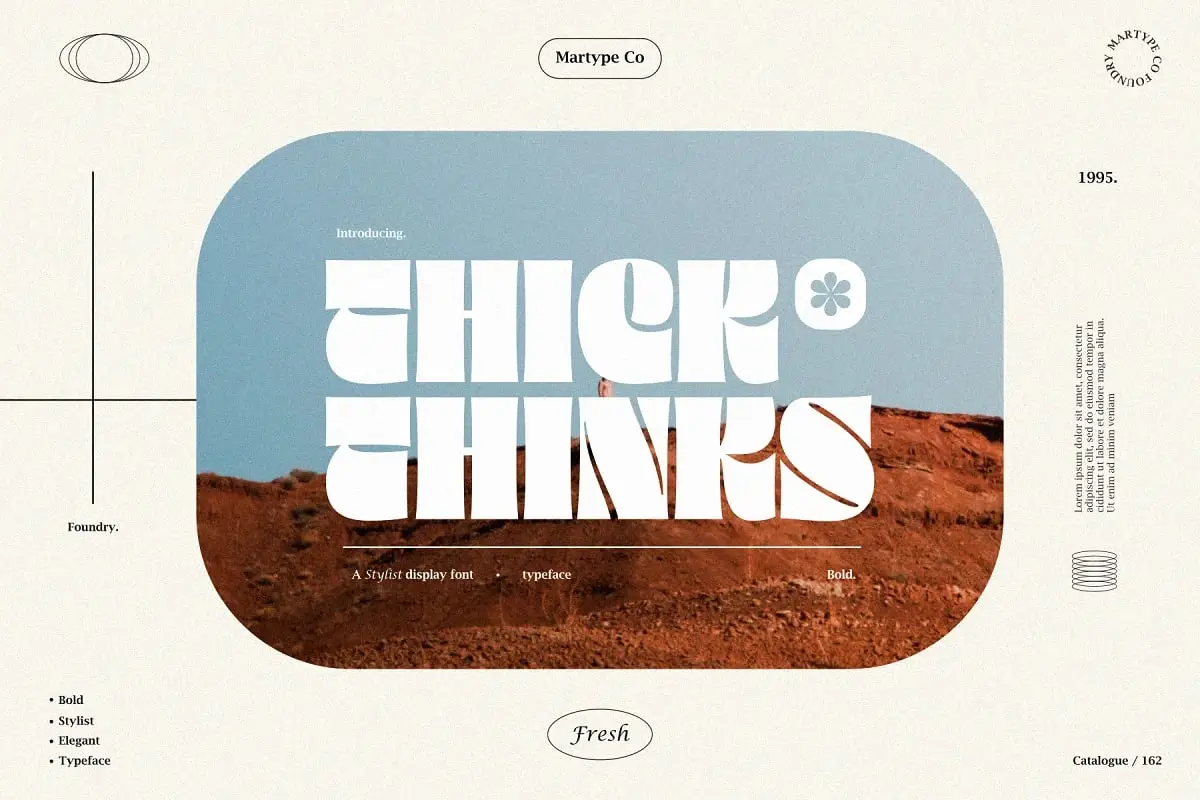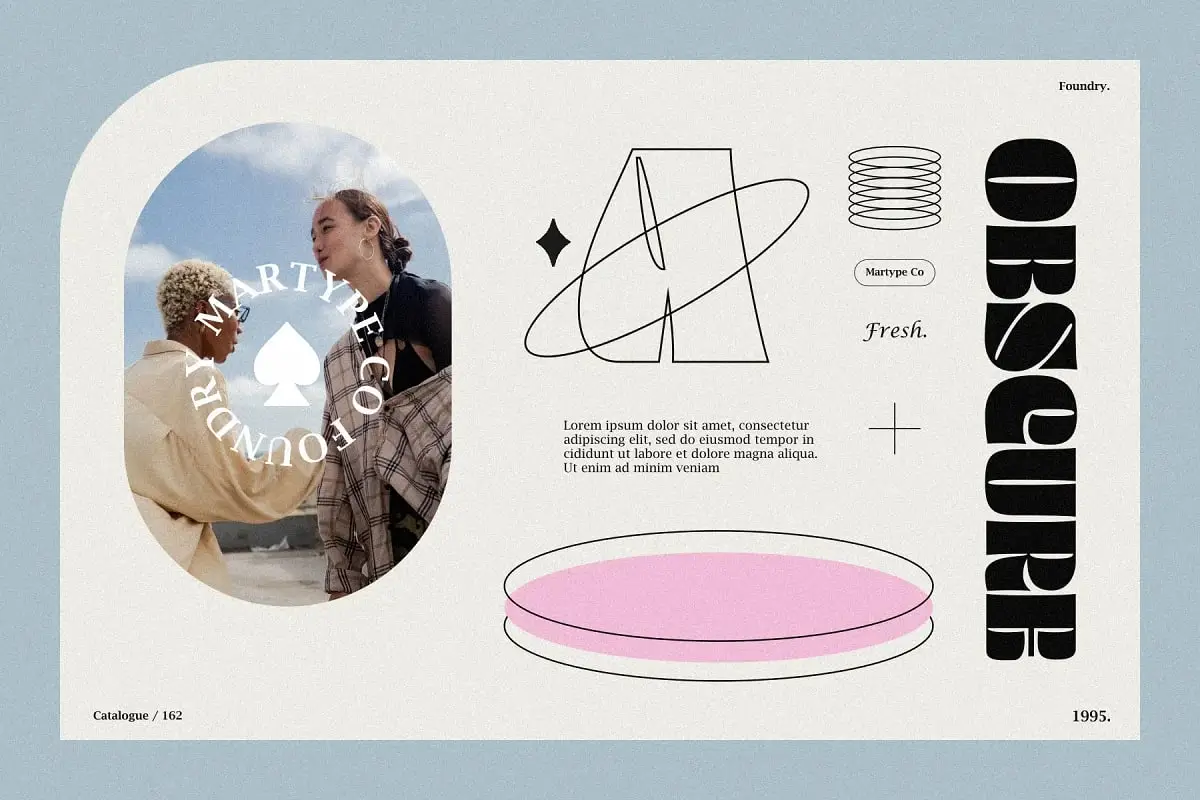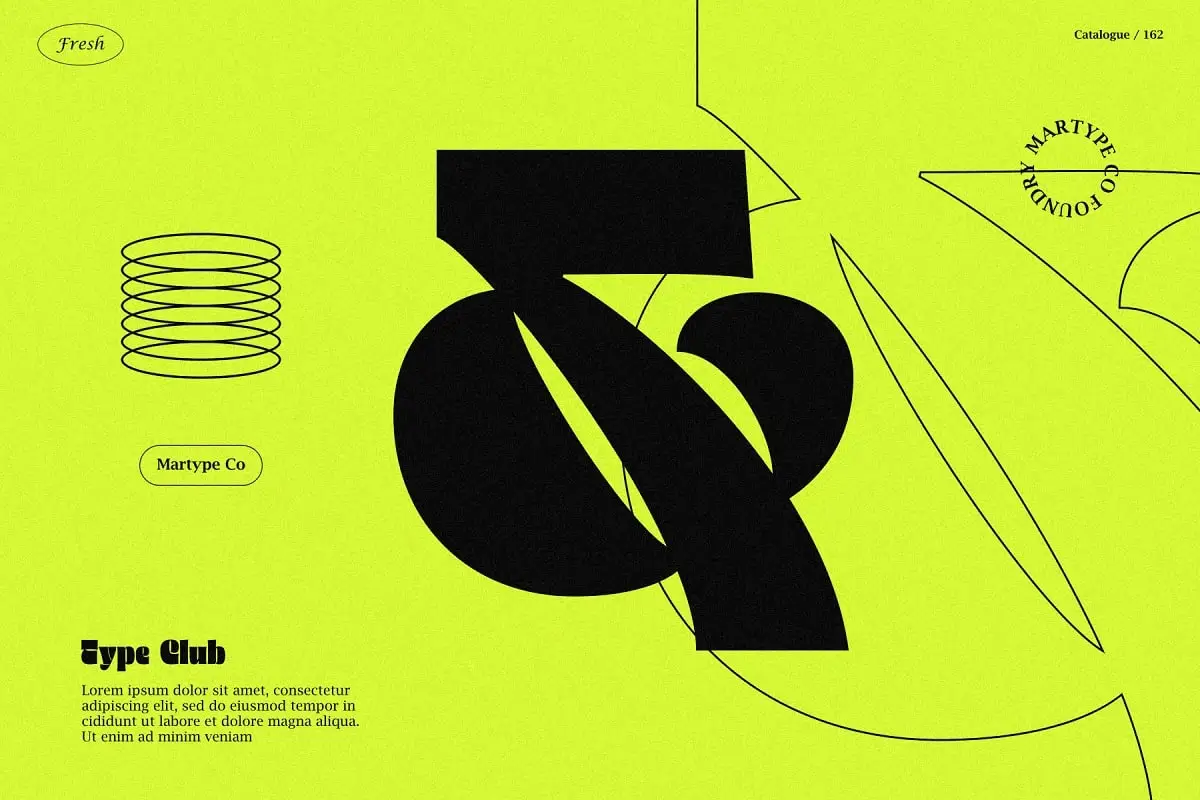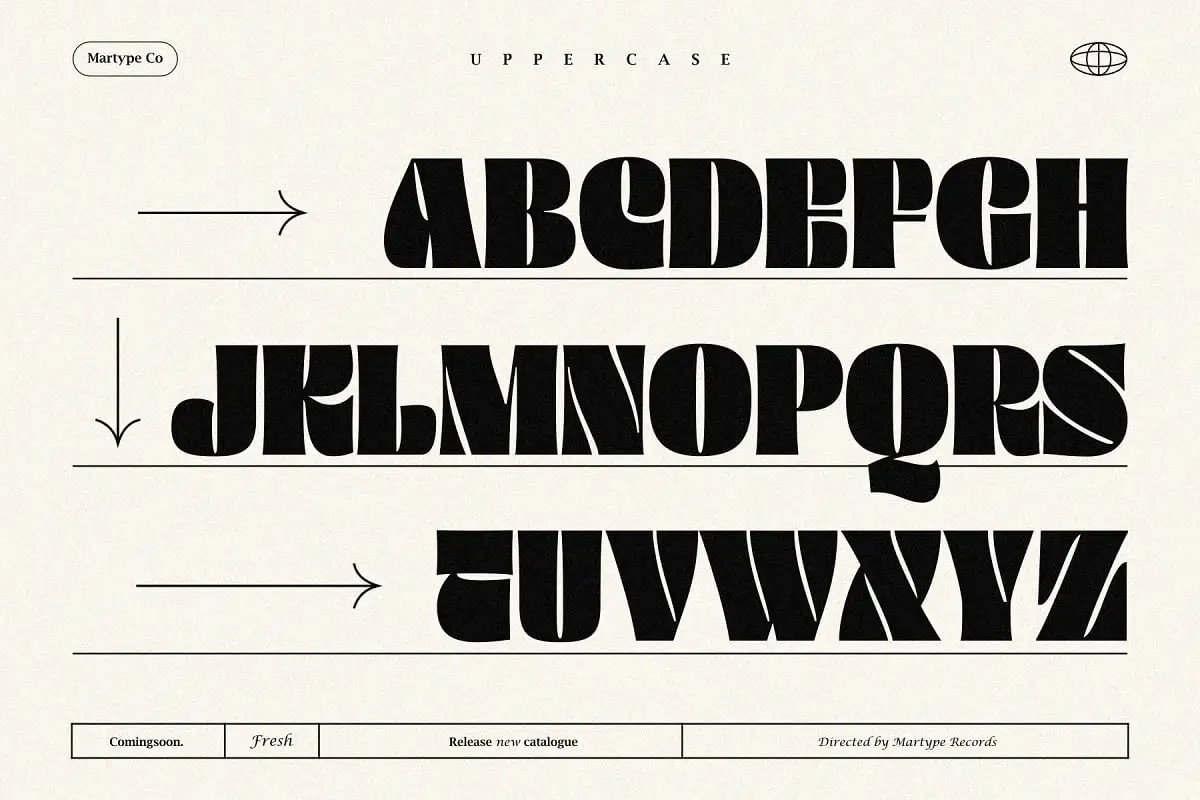
Martype Co-Thick Thinks (Display Font)
Introducing Martype Co-Thick Thinks, a striking display font designed to make a bold statement in your projects. This font features a unique blend of thick strokes and playful curves, making it perfect for eye-catching headlines, branding, and promotional materials.
• Bold and distinctive design
• Easy to read at various sizes
• Weights: Regular
• Ideal for branding, logos, and advertisements
• Use in web design for headings and banners
• Perfect for print materials like posters and flyers